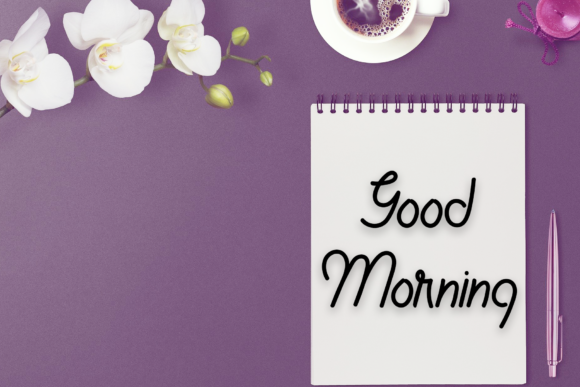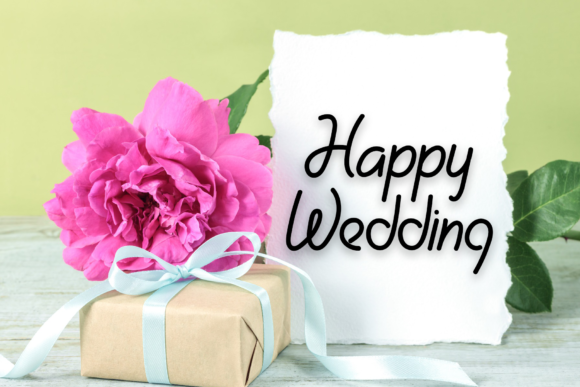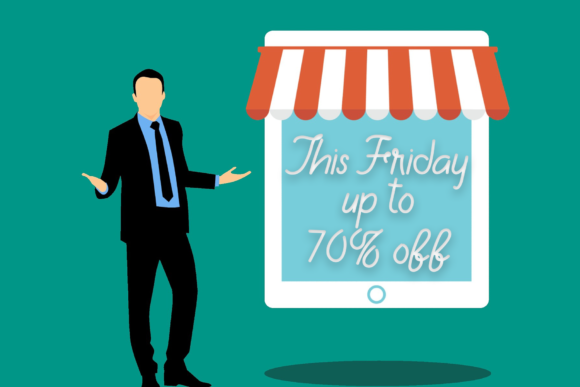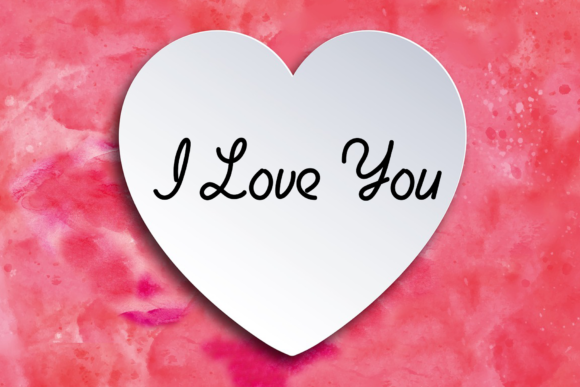
Bella Beauty Font: Elevate Your Designs with Elegance and Sophistication
Are you a designer or crafter looking for a font that exudes elegance and sophistication? Look no further than the Bella Beauty Font. This stunning script font is perfect for adding a touch of wow to your designs, making it ideal for wedding invitations, greeting cards, logos, and more.
The Beauty of Bella Beauty Font
Bella Beauty Font is an elegant script font that boasts beautiful and natural lines, paired with decorative swirls on select letters. This unique combination gives the font a distinctive and eye-catching quality that is sure to elevate your designs. The font’s flowing lines and curves create a sense of movement and fluidity, making it perfect for designs that require a touch of whimsy and romance.
Wedding invitations, thank you cards, and wedding stationery are just a few examples of where Bella Beauty Font shines. The font’s elegant and sophisticated design makes it perfect for formal events, while its playful and whimsical touches add a romantic and personal touch. Whether you’re designing for a wedding, anniversary, or other special occasion, Bella Beauty Font is sure to impress.
Versatility Beyond Wedding Designs
While Bella Beauty Font is perfect for wedding and event designs, its versatility extends far beyond. The font is also ideal for:
- Logos and branding: Add a touch of elegance and sophistication to your business’s logo and branding materials.
- Business cards: Stand out from the crowd with a beautifully designed business card featuring Bella Beauty Font.
- Greeting cards: Create stunning greeting cards for any occasion, from birthdays to holidays.
- Stationery: Add a touch of whimsy and romance to your stationery, including notebooks, journals, and more.
Why Choose Bella Beauty Font?
So why choose Bella Beauty Font over other fonts? Here are just a few reasons:
- Elegance and sophistication: Bella Beauty Font exudes elegance and sophistication, making it perfect for formal events and designs.
- Unique and eye-catching: The font’s decorative swirls and flowing lines create a unique and eye-catching quality that sets it apart from other fonts.
- Versatility: Bella Beauty Font can be used for a wide range of designs, from wedding invitations to logos and branding materials.
Tips for Using Bella Beauty Font
To get the most out of Bella Beauty Font, here are a few tips:
- Pair with complementary fonts: Pair Bella Beauty Font with complementary fonts to create a stunning and cohesive design.
- Experiment with colors: Experiment with different colors and textures to add depth and interest to your design.
- Use decorative swirls: Take advantage of the font’s decorative swirls to add a touch of whimsy and romance to your design.
Bella Beauty Font is a stunning script font that is sure to elevate your designs with elegance and sophistication. With its beautiful and natural lines, decorative swirls, and versatility, it’s perfect for a wide range of designs, from wedding invitations to logos and branding materials. Whether you’re a designer or crafter, Bella Beauty Font is a must-have font that is sure to impress.